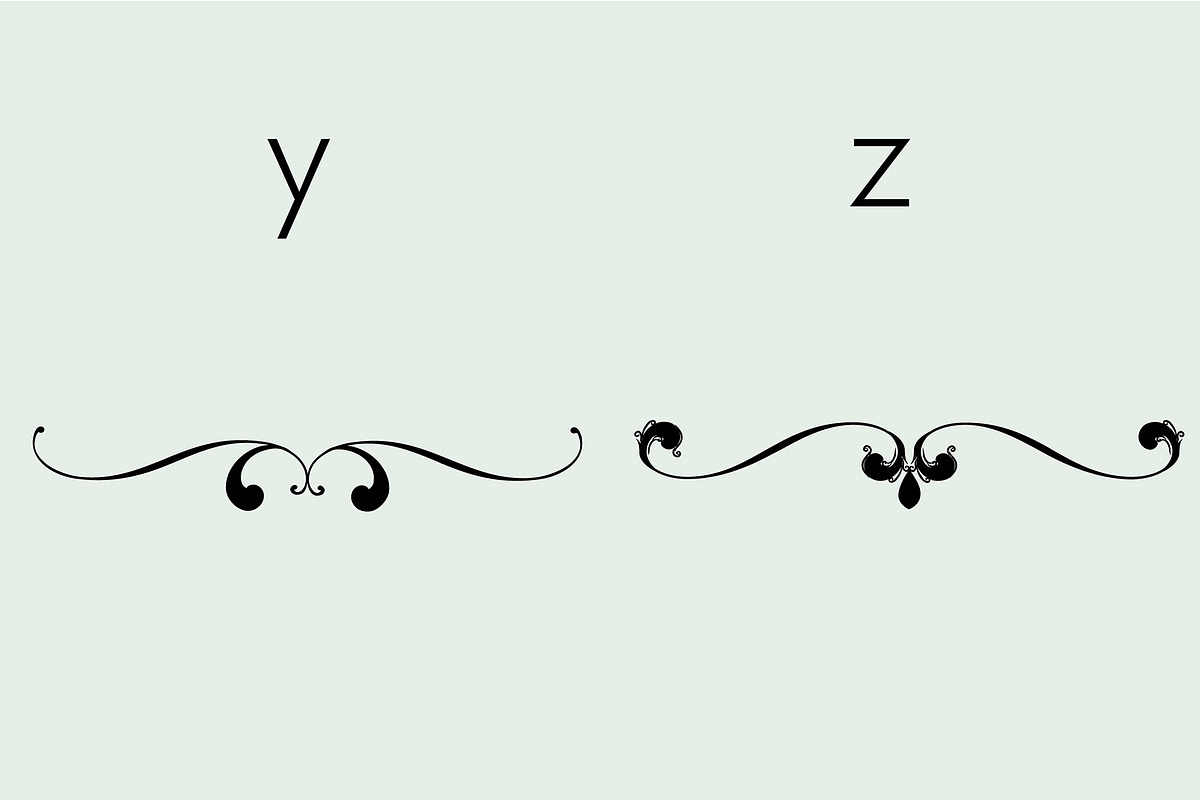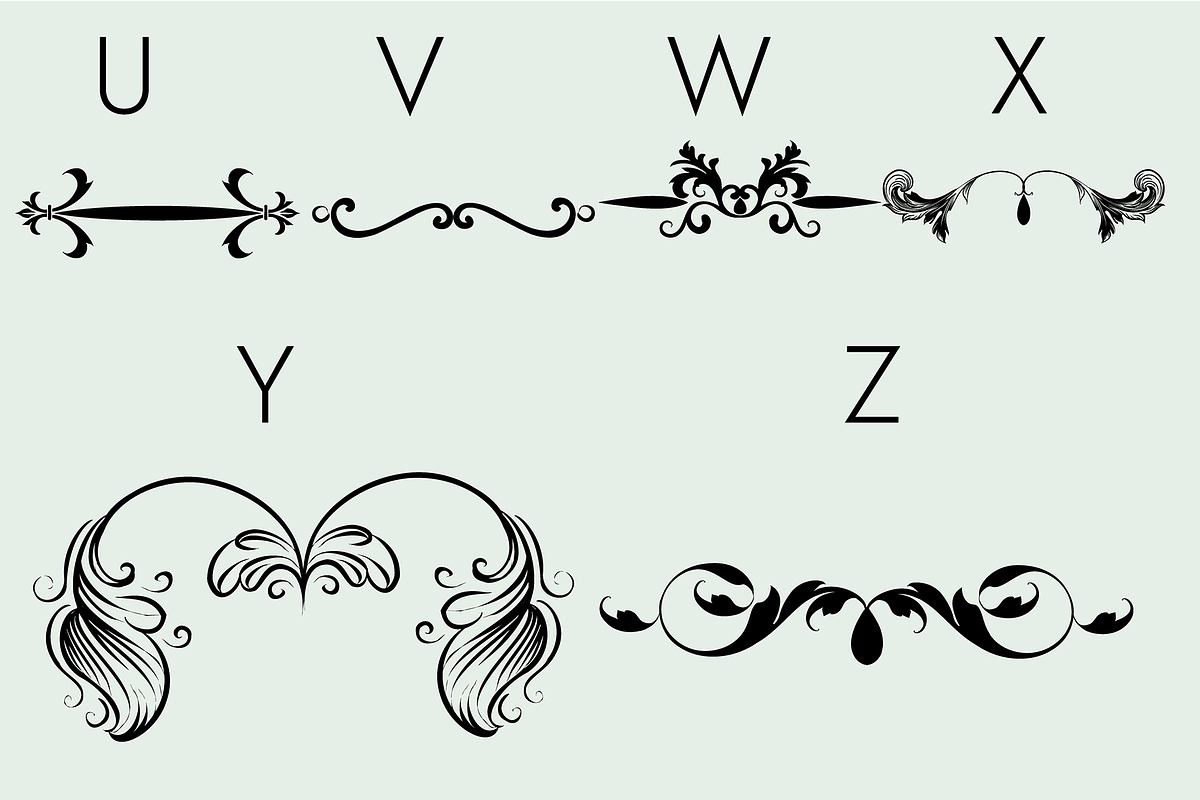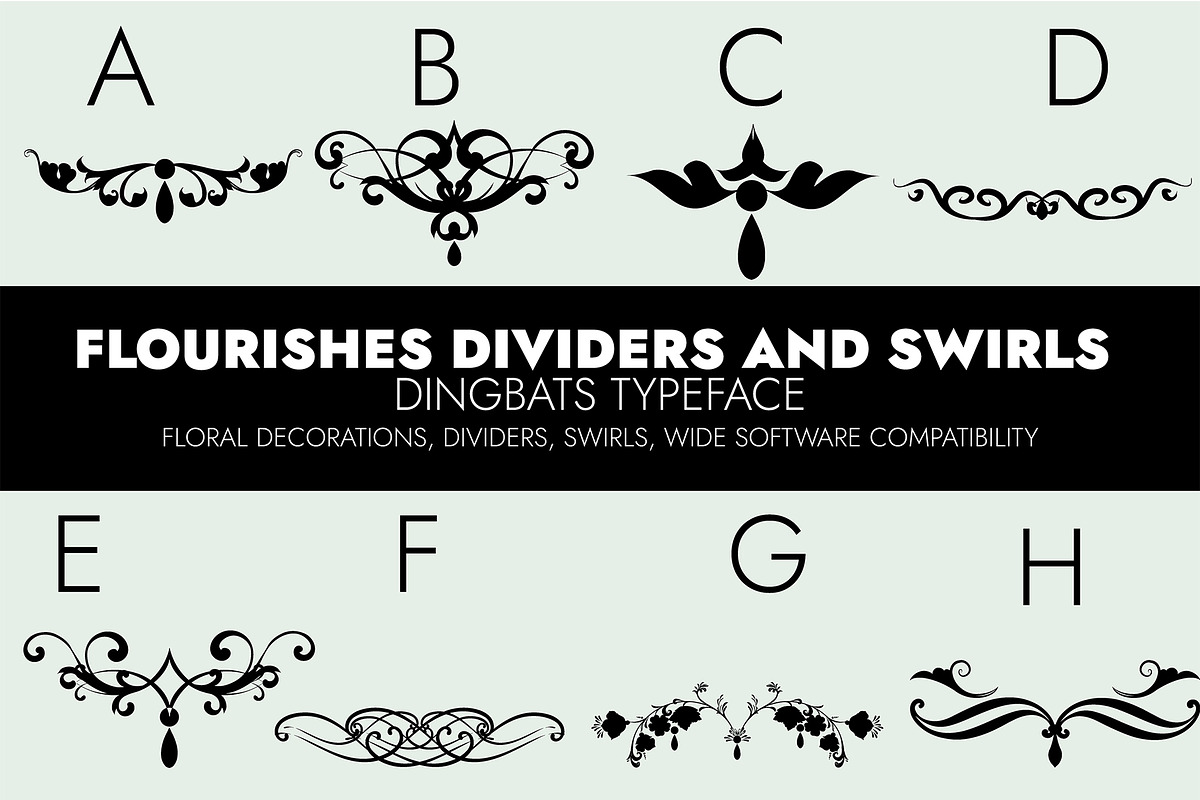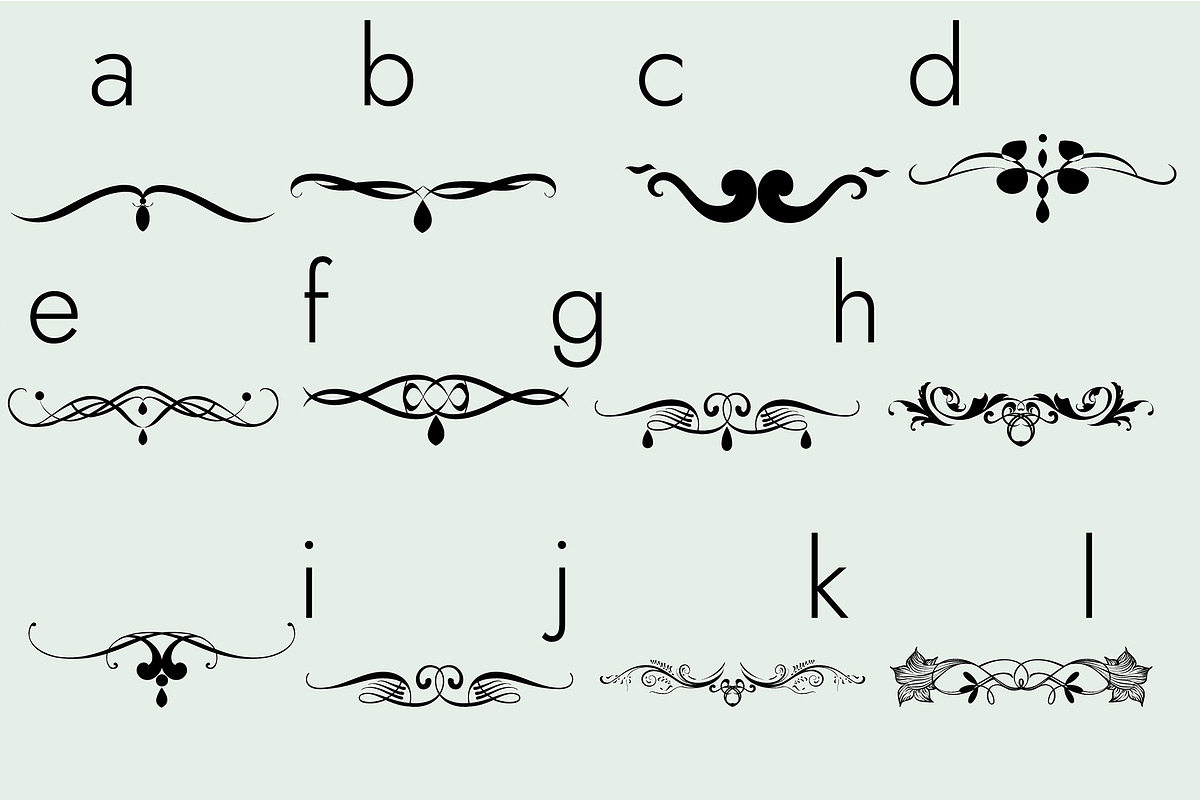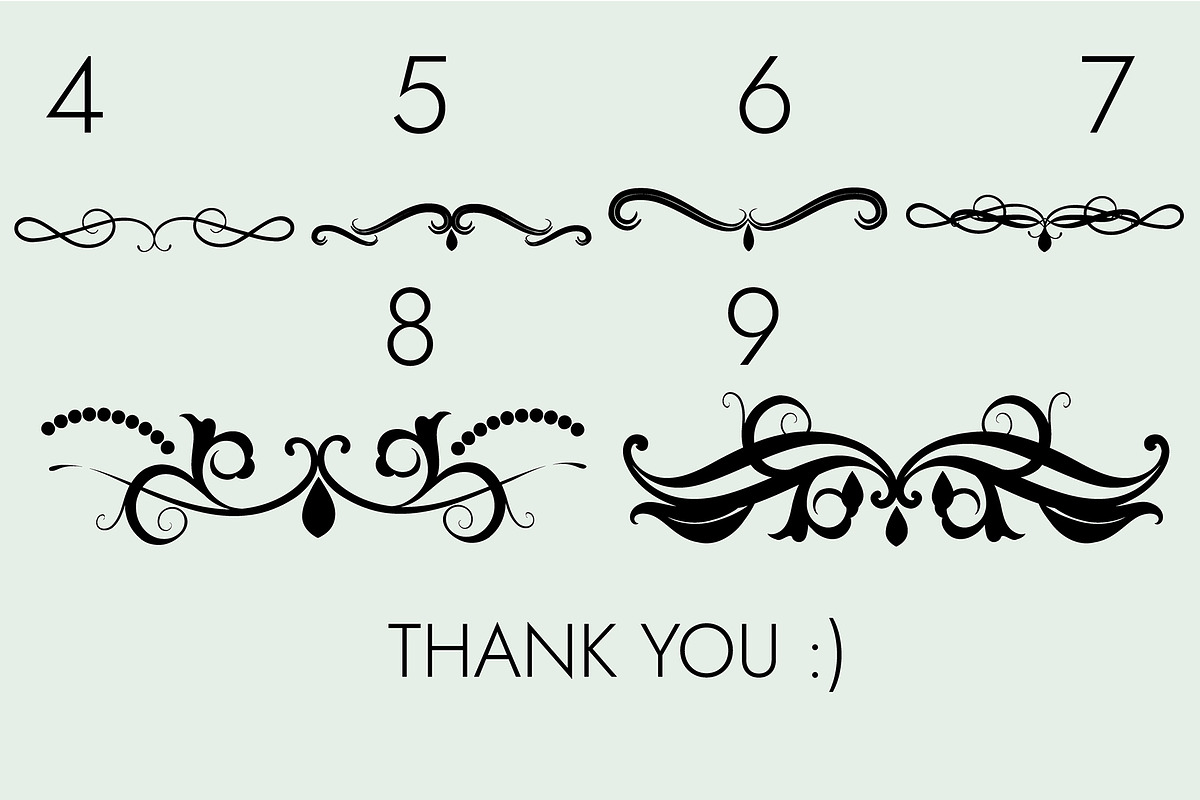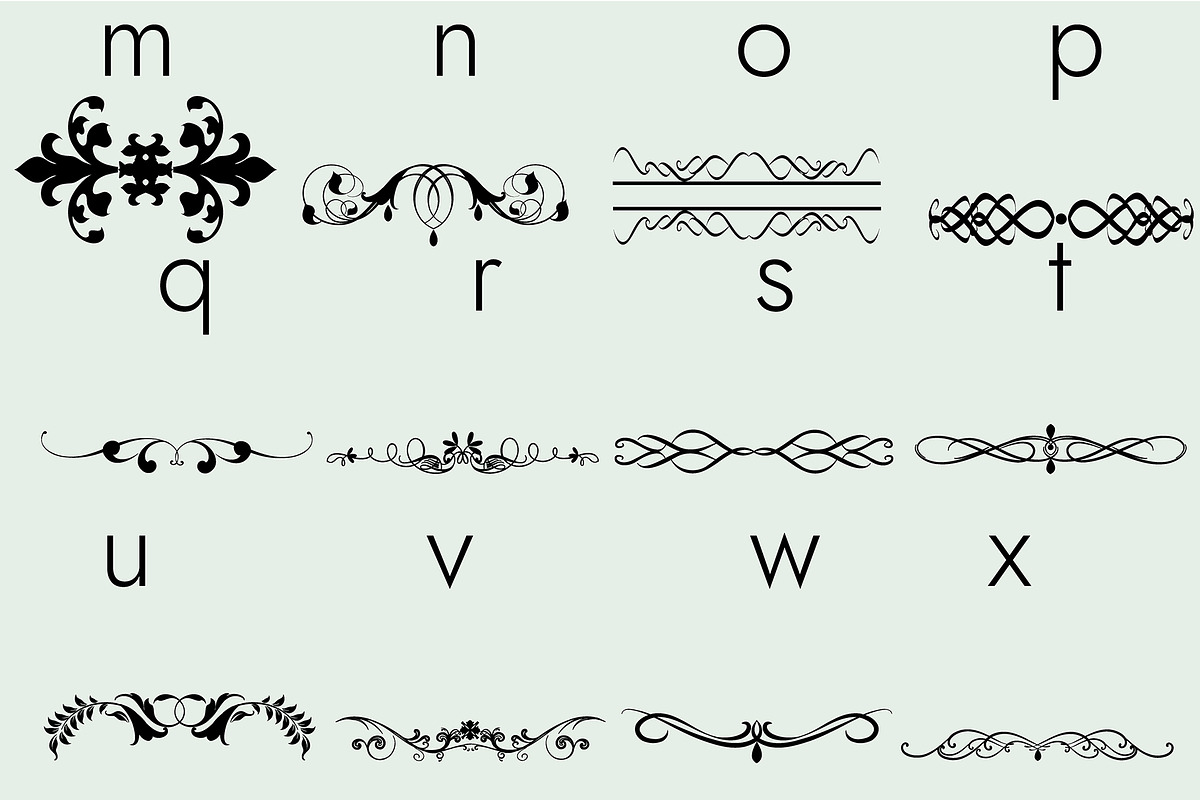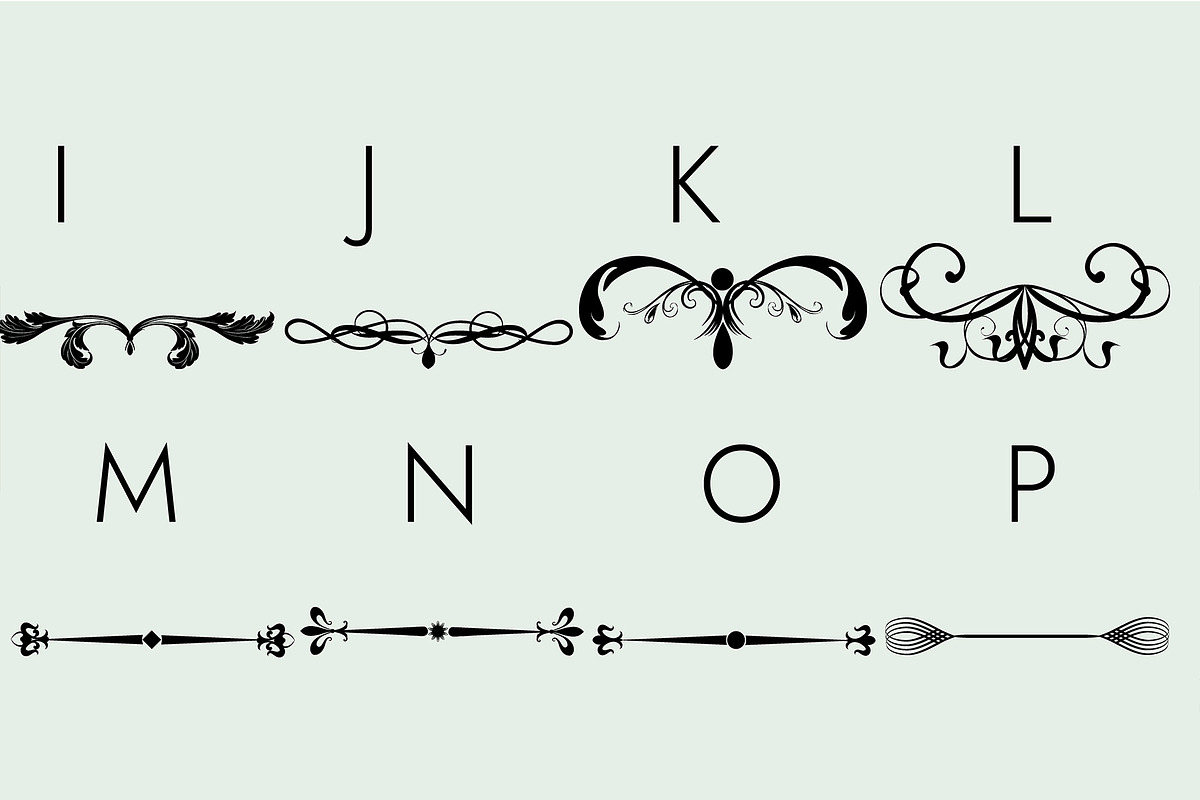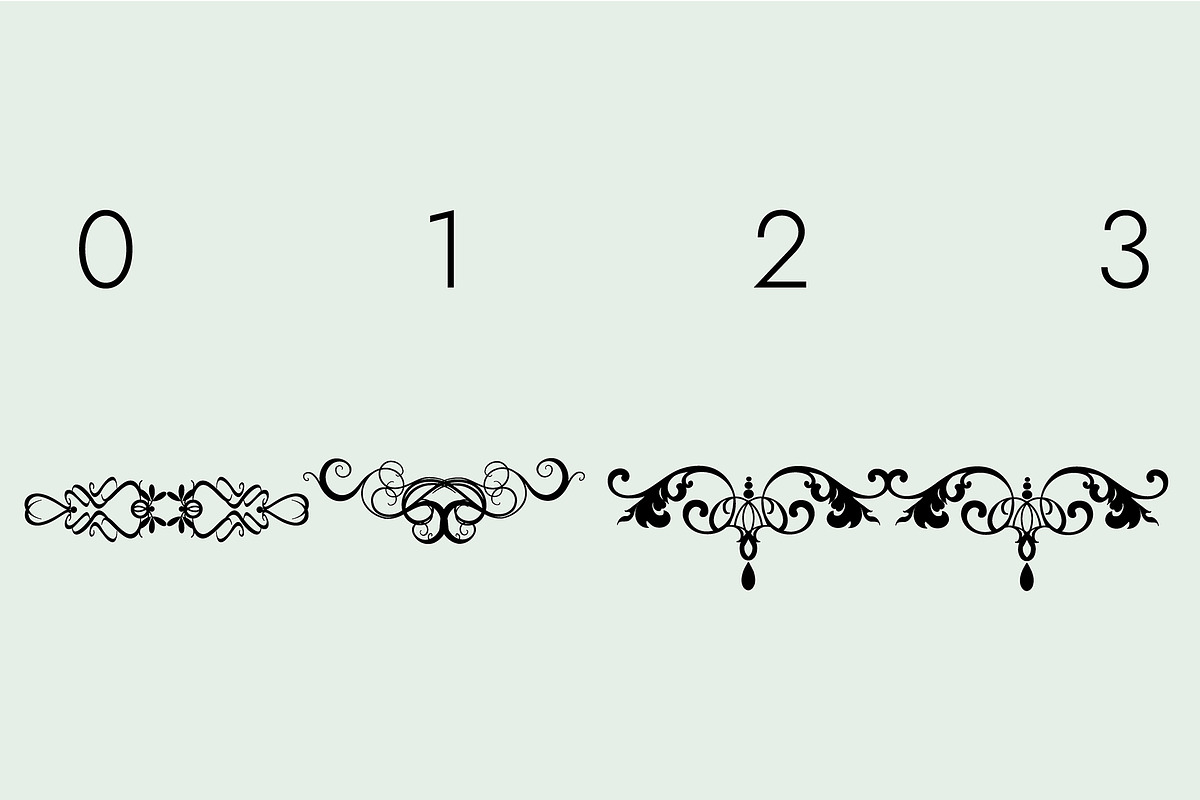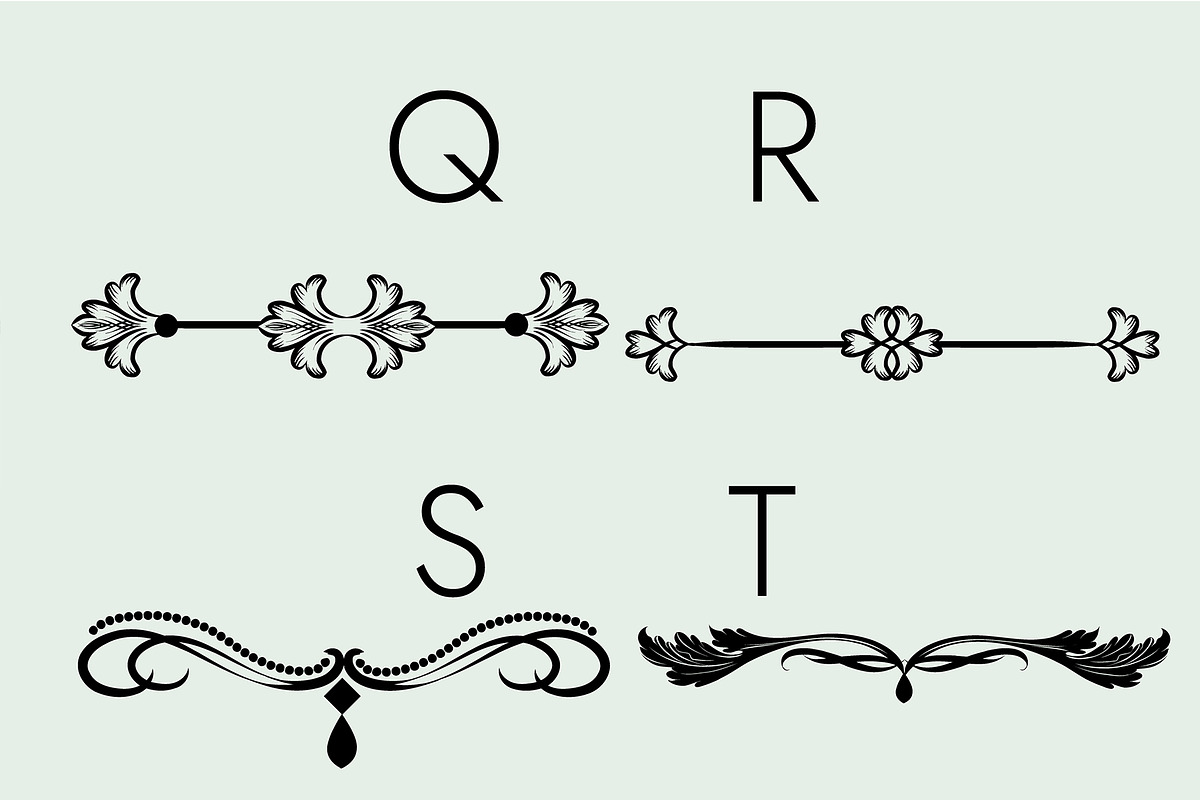
Flourishes Dividers &Swirls Dingbats
“Flourishes, Dividers, and Swirls” is a useful dingbats font that allows you to generate multiple decorations to suit all your design needs! Use it for your most creative design ideas, and you’ll love the results!